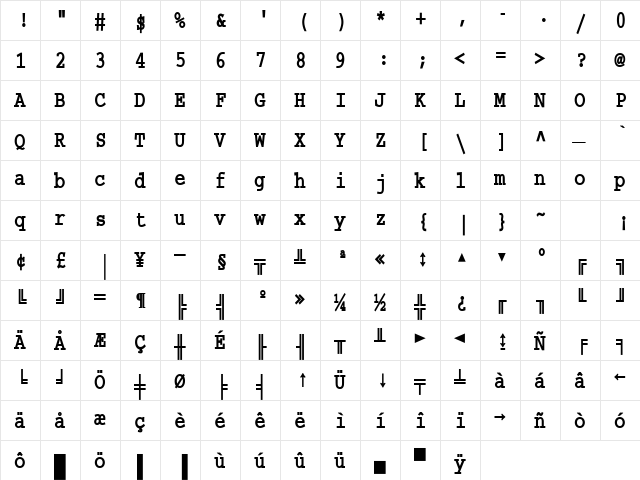
BARR-Courier A
Design Context for BARR-Courier Typeface
BARR-Courier uses fixed-width spacing throughout, giving it the structured, systematic character associated with coding environments and technical documentation.
Pro Tip: Pair BARR-Courier with a proportional sans for UI contexts where code-style labels and regular body copy need to coexist.